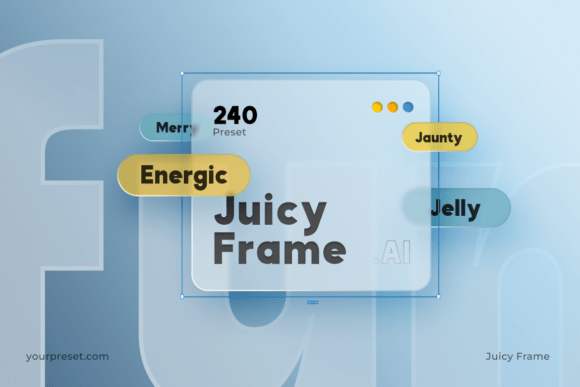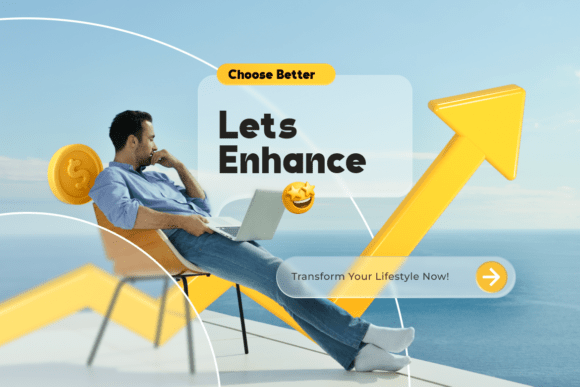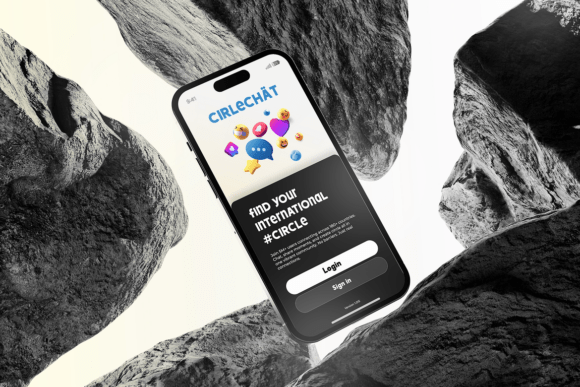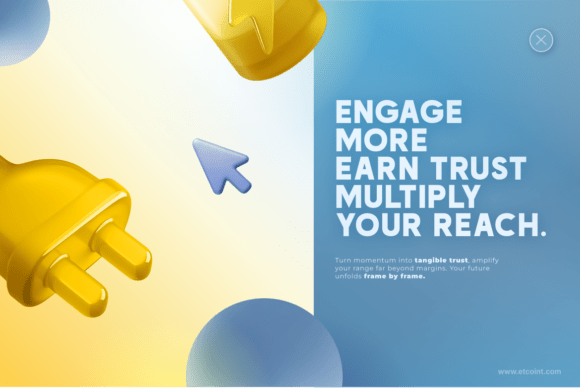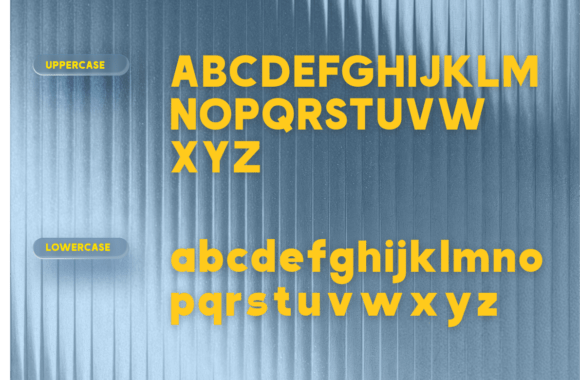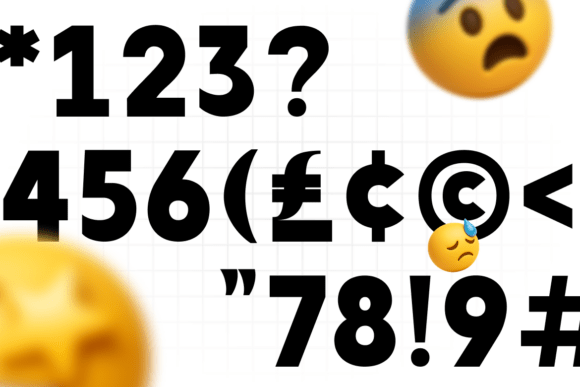
Introduction to Mebula Font
Mebula is a bold, modern display sans serif font designed with clarity, impact, and versatility in mind.
It features strong geometric shapes, high legibility, and a confident presence, making it perfect for contemporary branding, web headers, mobile interfaces, and digital advertising Mebula is ready to tackle diverse design needs.
Mebula Font offers exceptional quality and versatility, making it a valuable addition to your design toolkit. Whether you’re creating for personal projects or commercial use, Mebula Font delivers professional results.